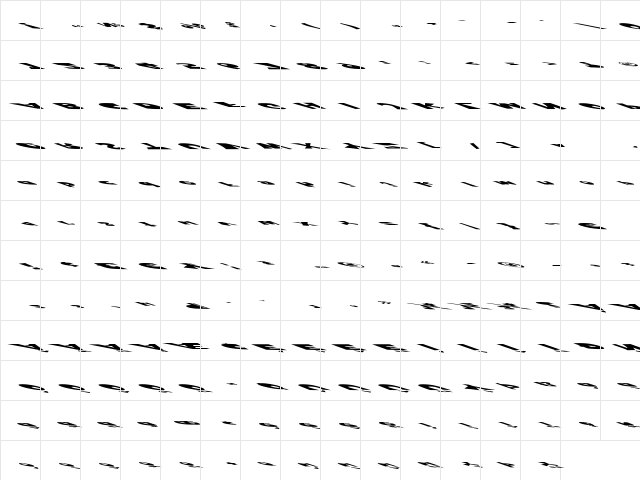
Complete PeeKnuckle 'ShadowOnly' Regular glyph index. Displaying only characters natively supported by PeeKnuckle 'ShadowOnly' Regular font.
PeeKnuckle 'ShadowOnly' is built around its visual character rather than neutral utility - its distinctive forms are designed to make an impression at display sizes.
Font Pairing: Pair with a clean neutral sans-serif for body copy to let PeeKnuckle 'ShadowOnly''s character lead without overwhelming the composition.
Pro Tip: Use PeeKnuckle 'ShadowOnly' exclusively at display sizes - it was designed to be seen, not read at length. Let a neutral companion handle body copy.